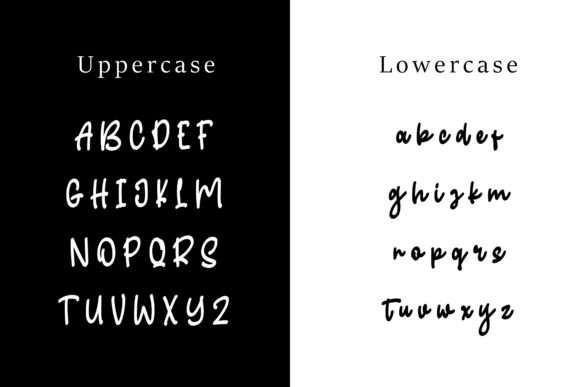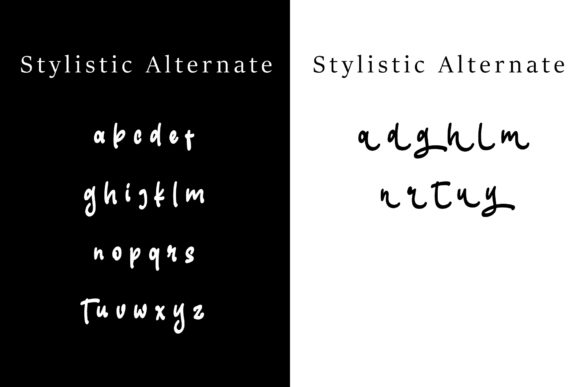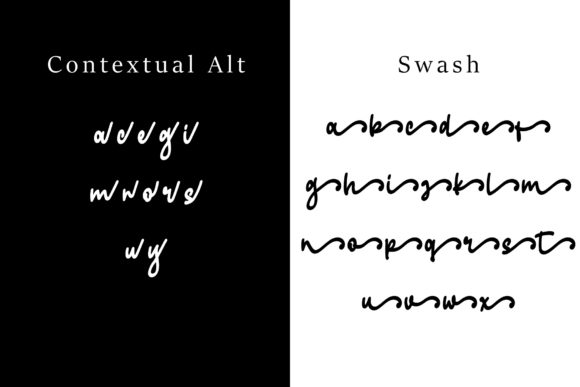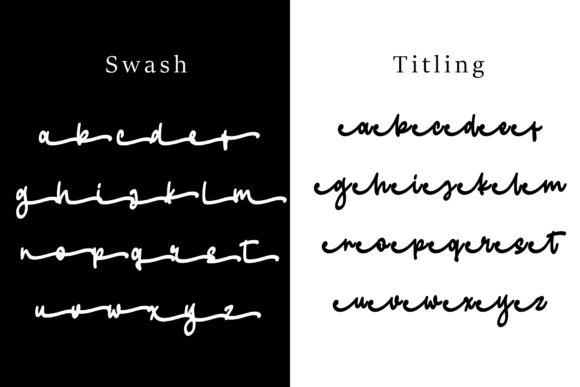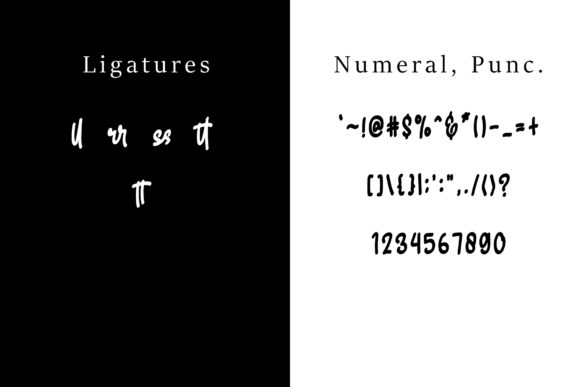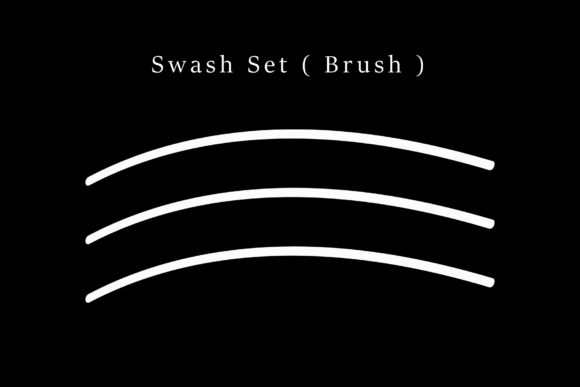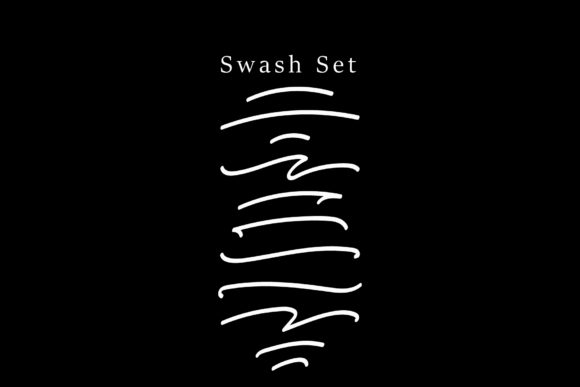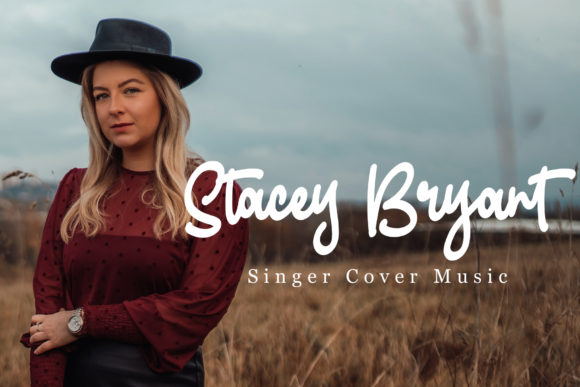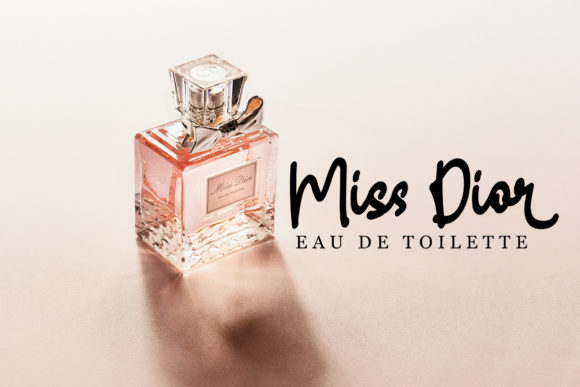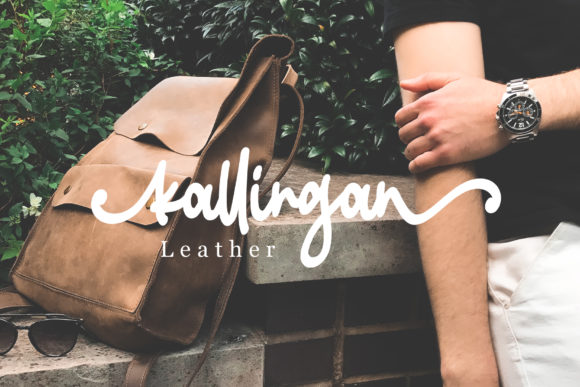
HomeScript FontsSkilled Font Script Fonts Skilled Font FacebookXPinterestWhatsApp Skilled Font Poster 2 Skilled Font Poster 3 Skilled Font Poster 4 Skilled Font Poster 5 Skilled Font Poster 6 Skilled Font Poster 7 Skilled Font Poster 8 Skilled Font Poster 9 Skilled Font Poster 10 Skilled Font Poster 11 Skilled Font Poster 12 Skilled Font Poster 13 Skilled Font Poster 14 Skilled Font Poster 15 Skilled Font Poster 16 About Skilled Font Skilled is a thick and playful script that’s full of energy. Get inspired by its timeless appeal. DOWNLOAD ON CREATIVE FABRICAThis font is sold and delivered by Creative Fabrica. Font Canyon may earn a commission if you buy through this link. People also explored Obladi Script Modern Calligraphy Script Font Confident Font Billkia Font Naturalist Handwriting Font Thinking Font Saurus Font Swally – Brush Script Font Black Sail Font Downey Font 383 0 TagsSkilled Font Previous articleHachirou FontNext articleOlivia Font LEAVE A REPLY Cancel reply Comment: Please enter your comment! Name:* Please enter your name here Email:* You have entered an incorrect email address! Please enter your email address here Website: Save my name, email, and website in this browser for the next time I comment. Personal Use Free Still Time Personal Use Free Read more about this font Squariess Personal Use Free Read more about this font Messages Personal Use Free Read more about this font Eits Personal Use Free Read more about this font BLOG Exploring Font Trends Shaping Communication in the Digital Era Fonts, like all design elements, are subject to trends. They play a crucial role in communicating a brand's personality,... Transform Your Website: Elevate Your Typography with 7 Best Web Font Generators Where to Buy American Fonts Online in 2024 Free Fonts Risk: Why Free Fonts Can Be Dangerous for Designers